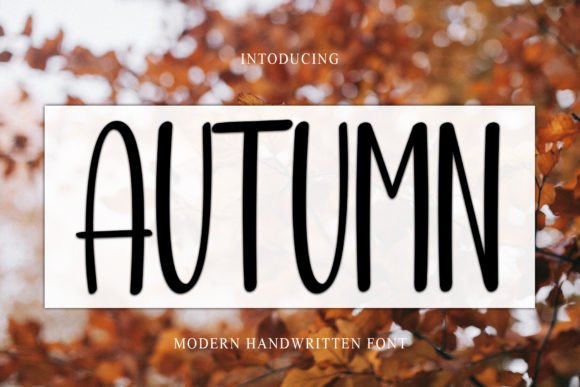
The Perfect Autumn Font: Elevate Your Designs with Timeless Elegance
As a designer, I’ve had my fair share of frustrating moments while working on a project. I recall one particular instance where I was tasked with creating a stunning invitation for a fall wedding. The client wanted a font that exuded elegance, sophistication, and the warmth of the autumn season. After hours of scouring through font libraries, I stumbled upon the Autumn Font – a stylish handwritten font that instantly captured the essence of the season. In this article, I’ll share my experience with this beautiful font, its features, and how to make the most of it in your designs.
A Personal Review: What I Love About Autumn Font
The Autumn Font has become a staple in my design toolkit, and for good reason. Here are some features that I absolutely love:
• ✨ Contemporary yet classic: The font strikes a perfect balance between modernity and timelessness, making it suitable for a wide range of design projects.
• ✅ Impeccable form: The font’s attention to detail and precision in its design ensure that it looks polished and refined.
• 💫 PUA encoded: The font’s PUA encoding means that I can easily access a wide range of glyphs and ligatures, giving me endless creative possibilities.
• 🌿 Balanced and varied: The font’s varied strokes and balanced design make it perfect for creating visually appealing text arrangements.
While the Autumn Font is an excellent choice for many design projects, there are a few minor quirks to be aware of:
• 🤔 Limited multilingual support: While the font supports some languages, it may not be suitable for projects requiring extensive multilingual support.
The Designer Inspiration Behind Autumn Font
The Autumn Font was inspired by the timeless beauty of classic calligraphy. The designer aimed to create a font that captured the essence of traditional calligraphy while infusing it with a modern twist. The result is a font that’s both elegant and contemporary, perfect for a wide range of design projects.
What is the Autumn Font? The Autumn Font is a stylish handwritten font with a contemporary atmosphere and impeccable form, inspired by timeless classic calligraphy.
Is the Autumn Font PUA encoded? Yes, the Autumn Font is PUA encoded, making it easy to access a wide range of glyphs and ligatures.
Does the Autumn Font support multilingual text? While the Autumn Font supports some languages, it may not be suitable for projects requiring extensive multilingual support.